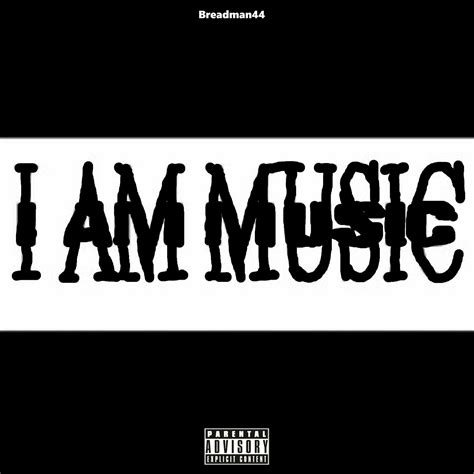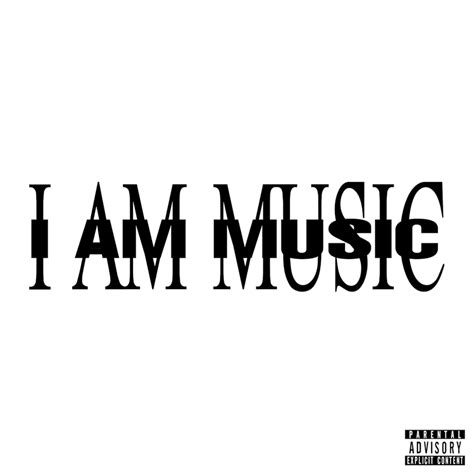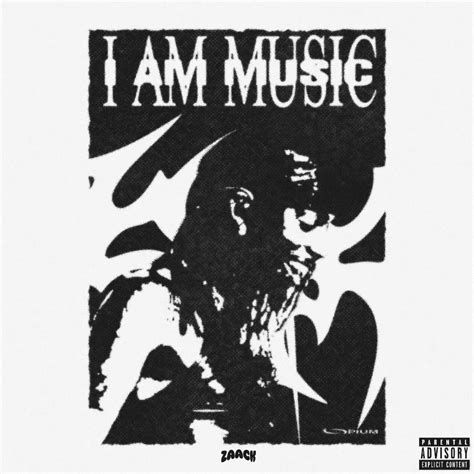
The iam music font is a unique and creative font designed specifically for the music industry. It is a bold and modern font that is perfect for creating eye-catching headlines, titles, and logos for music-related projects. With its distinctive style, this font is sure to make a statement and stand out from the crowd.
One of the key features of the iam music font is its versatility. It can be used for a wide range of applications, from album covers and posters to social media graphics and website headers. The font's bold and modern design makes it ideal for creating a strong visual impact and capturing attention.
In addition to its aesthetic appeal, the iam music font also offers a unique and memorable way to represent the concept of music. The font's design incorporates musical elements, such as notes and rhythms, which add a playful and creative touch. This makes it perfect for music-related branding and marketing materials, as it allows for a fun and engaging visual representation of the art form.
Overall, the iam music font is a powerful tool for anyone looking to make a statement in the music industry. Its bold design, versatility, and unique musical elements make it a perfect choice for creating memorable and impactful visuals.